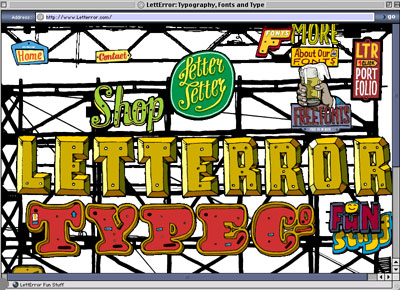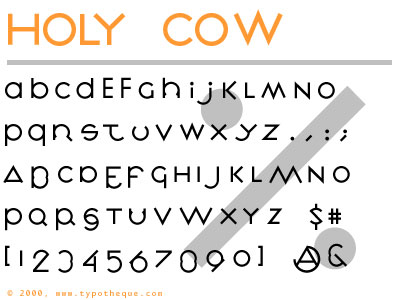
dot-font: Not Your Usual Type
Looking for fresh fonts? There are a lot more sources of well-designed typefaces than just the usual suspects. Here are a few from around the world.
Type design has always been an international phenomenon, and the explosion of small digital type foundries in recent years is not limited to the United States, or even to the English-speaking world. While the fonts that ship with new computers, and those that come with software packages from Microsoft and Adobe and other major vendors, are usually of high quality and often provide as much variety as many users need, professional graphic designers are always on the lookout for new designs and new sources. Here is a range of useful URLs for the curious. Some are well known, some aren't.
Starting Close to Home
The two traditional biggies, aside from Adobe, are Linotype and Agfa Monotype. Although neither company is under the same ownership it started out with (and Agfa Monotype is an amalgamation of at least two type companies, Monotype and Compugraphic, plus the later-acquired type library of ITC), they both continue to market the type libraries that they began developing a hundred years ago, in the early days of machine typesetting. Agfa Monotype sells a lot of typefaces developed by independent type designers, alongside their traditional library. Linotype has recently been developing new, updated versions of some of their most respected older typefaces, adding the term "Next" to the typeface name.
I still think of FontShop as a "small" foundry, but in fact it has to be considered one of the major players, too. Not only do the various FontShops around the world sell almost everybody's type libraries, but their own FontFont line of original typefaces is one of the largest. The FontFont line was responsible for introducing a more European aesthetic to American use of type, especially through the many excellent type families from young Dutch and German designers that they sell; the latest promotional material from FontShop San Francisco suggests that they're still pushing the envelope.
Font Bureau, based in Boston, has great name recognition at the high end, especially among magazine designers -- and, as I have described in an earlier column, Font Bureau makes some very useful, very well-designed catalogs of their fonts. Similarly talented, and almost as prolific, the New York–based Hoefler Type Foundry grows out of the same area of graphic design; magazine designers love Hoefler fonts, too.
Exploring the Reaches of the Type World
Now we get a little farther afield. Jeremy Tankard Typography, is based in London but has almost the same internet address as Hoefler: "typography.net" rather than "typography.com." Otherwise, the only thing they have in common is quality; Tankard's typeface designs range from all-purpose families like Bliss to the very peculiar Shire Types (see figure 1).
Figure 1: Jeremy Tankard's Shire Type family
You may already be familiar with LettError, the collaborative design studio of Erik van Blokland and Just van Rossum, in The Netherlands (the two men work out of their offices in The Hague and Haarlem, respectively). Many of their typeface designs are sold as part of the FontFont line, but some are also sold independently and directly. And the Web site is a delight (see figure 2).
Figure 2: The home page of LettError.com
Peter Bilak's Typotheque, also based in The Hague (despite the French name and the founder's Slovak nationality), is the source of typefaces from a variety of independent designers, from several countries (see figure 3).
Figure 3: Peter Bilak's Holy Cow typeface
From Berlin, Dutch type designer Luc(as) de Groot sells his own highly focused line of fonts, including the popular Thesis family.
In Paris, Jean-François Porchez runs a very prolific type foundry -- Porchez Typofonderie -- and his typefaces can be found on several of the country's major newspapers. He also produces inspiring type specimens (see figure 4). And, since the Porchez typefaces are less well known in this country, using even the older faces can give a designer the cachet of newness.
Figure 4: A sample type specimen from Porchez Typofonderie
Check out the variety of Czech typefaces available from Stormtype, the studio run by Frantisek Storm. (If this weren't the Web, you'd see haceks over both of the s's in his name -- but there is none in the name of the foundry.) Some are digital revivals of early-20th-century Czech faces from well-known designers like Preissig (see figure 5); others are new. The styles are original and lively.
Figure 5: Stormtype's revival of the Czech designer Vojtech Preissig's 1925 typeface
In Mexico City, Gabriel Martinez Meave designs typefaces prolifically. A couple of them have been marketed by Adobe, but far more of them are available directly from the type designer at his own extensive site.
The most authoritative source for contemporary Russian type design is ParaType, in Moscow; besides original designs, they have a long history of creating Cyrillic complements (under license) for many typefaces in the ITC library. (Paratype offers fonts in Arabic, Hebrew, Greek, and Georgian as well.) What a lot of Western graphic designers don't realize is that most of the original Cyrillic fonts available include a Latin alphabet -- so if you like the design, you can often use it for typesetting in English (see figure 6).
There's Always More
There's absolutely nothing definitive about this list; it's only a beginning. I could probably do another column equally long with an entirely different set of small type foundries. My purpose is to point you to a few potentially useful resources that you may not be familiar with, and to encourage every graphic designer to think globally.